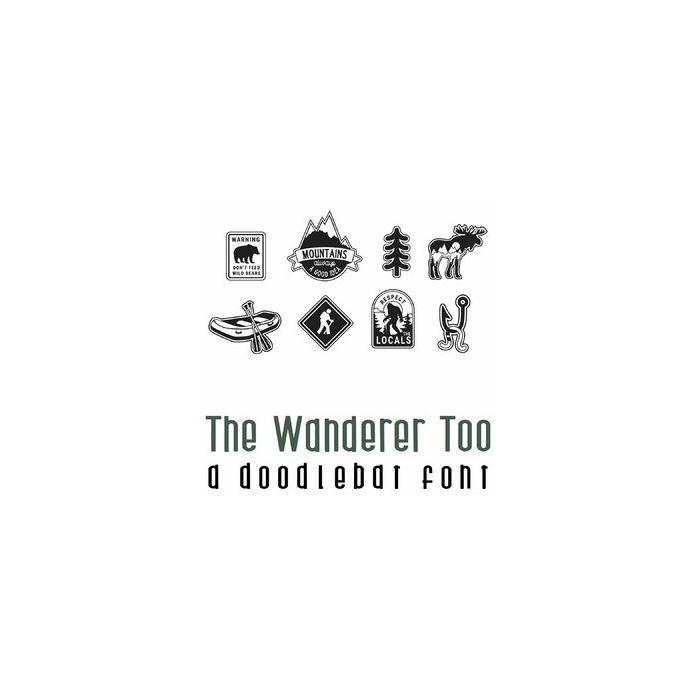
This fun doodlebat font features 26 more outdoorsy sticker-style images perfect for crafts, gifts, planner stickers, decor, cards, scrapbook pages and more!